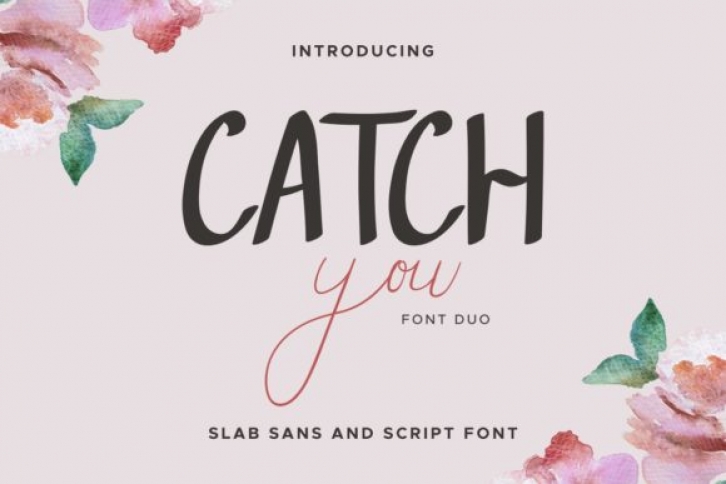
Catch You is a lovely duo font (handwritten and display). Its relaxed and trendy style makes it fitting to a great amount of creative ideas, so add it confidently to your fonts’ library and you will love the outcome.